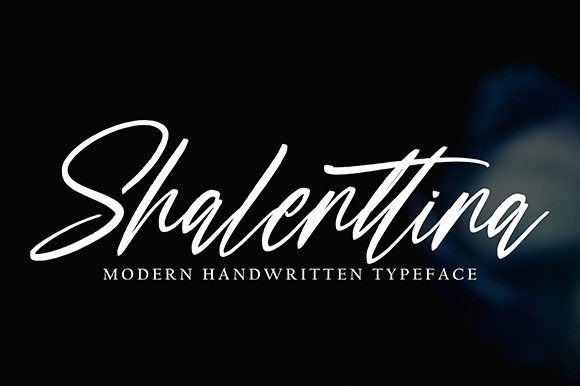
Introducing Shalenttina Script Font: A Symphony of Elegance and Versatility for Your Creative Endeavors
Immerse yourself in the captivating world of Shalenttina, a script font that embodies fluidity, grace, and timeless beauty. This masterfully crafted font family, brought to you by the creative minds of Pineungtype and Missinklab, is a true testament to the art of digital typography. With its mesmerizing curves and sweeping lines, Shalenttina is the perfect font for adding a touch of elegance and sophistication to your creative projects.
Unlock a World of Creative Possibilities:
With Shalenttina at your fingertips, the creative possibilities are endless. Whether you're a seasoned designer or just starting your artistic journey, this versatile font family will elevate your work to new heights. From heartfelt quotes to eye-catching logos, from elegant blog headers to vibrant posters, Shalenttina effortlessly adapts to any project, lending its unique charm and personality.
Embrace the Allure of Cursive Perfection:
Transport yourself to the world of handwritten elegance with Shalenttina, the epitome of cursive beauty. Its meticulously crafted lines flow effortlessly, evoking a sense of authenticity and artistry. Whether you're creating personalized invitations, heartfelt greeting cards, or stunning wedding stationery, Shalenttina will add a touch of grace and individuality to your words.
Unleash Your Creativity with Shalenttina:
Shalenttina is more than just a font; it's a creative companion that empowers you to express yourself in countless ways. Let your imagination soar as you explore the endless possibilities of Shalenttina, transforming your digital designs into breathtaking works of art.
Enhance Your Projects with Shalenttina:
- Quotes: Adorn your favorite quotes with Shalenttina's sweeping lines, adding a touch of timeless beauty to your words.
- Logos: Create logos that exude elegance and sophistication, leaving a lasting impression on your audience.
- Blog Headers: Capture attention with Shalenttina's captivating curves, making your blog headers truly unforgettable.
- Posters: Design posters that command attention with Shalenttina's bold and graceful strokes.
- Branding: Elevate your brand identity with Shalenttina's timeless appeal, setting your business apart from the rest.
- Letterhead: Craft letterhead that reflects your professionalism and attention to detail, leaving a lasting impression on clients and partners.
- Invitations: Create invitations that capture the joy and anticipation of your special occasion, making them truly memorable.
- Stationery: Design stationery that reflects your personal style and adds a touch of elegance to your correspondence.